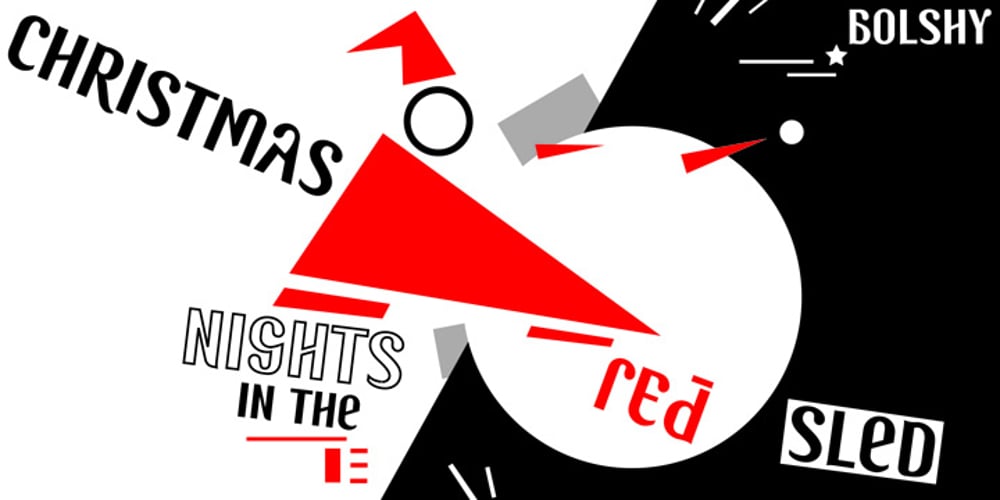
Bolshy Font Family was designed by published by K-Type. Bolshy contains 2 styles and family package options. Bolshy is a stroppy font whose x-height has got ideas above its station, it’s ended up being equal to the cap height. Bolshy doesn’t go completely Bauhaus, and although the boundaries are somewhat blurred, the distinction between upper and lower case just about remains intact. There is something slightly Cyrillic about Bolshy’s bulbous terminals, exotic shapes and condensed curvature.